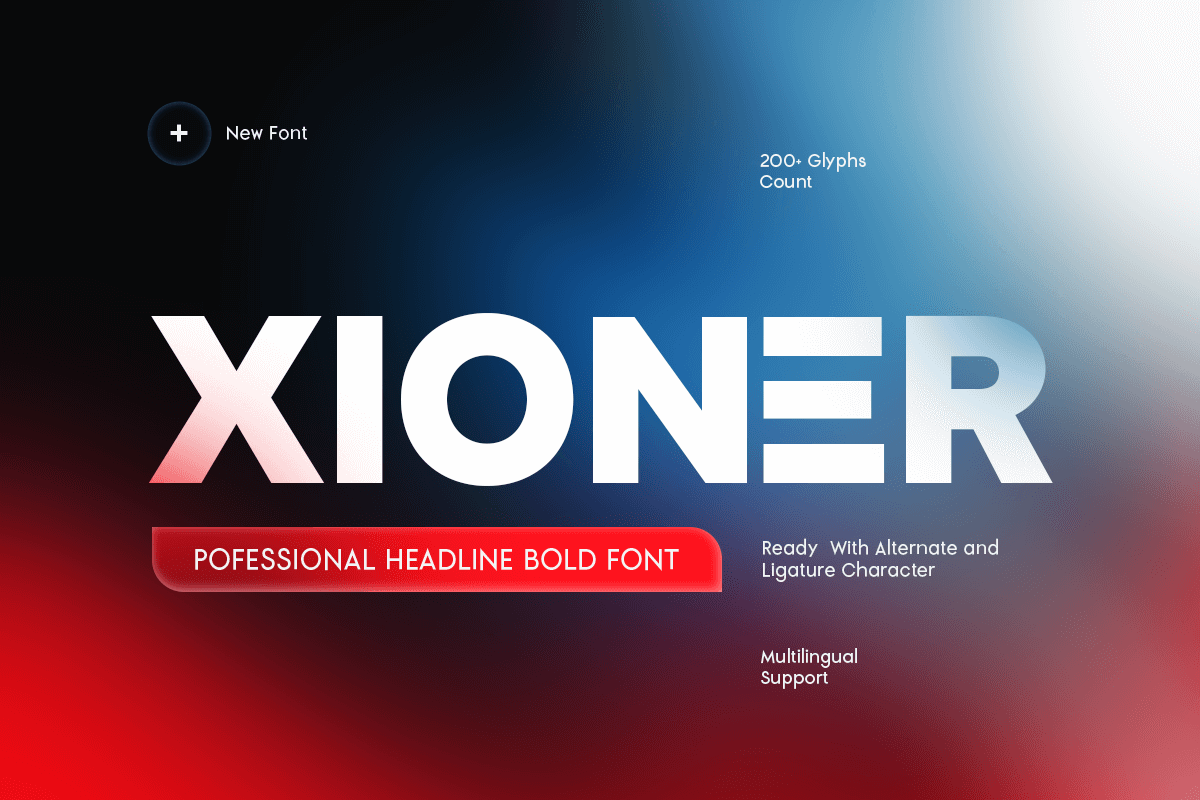
Xioner
-Geometric Branding Logo FontXioner - Geometric Branding Logo Font
XIONER is a unique geometric logo font designed to deliver a sharp, modern identity with distinctive character. Built from clean geometric construction and confident proportions, this typeface creates a sleek visual rhythm that feels contemporary, professional, and instantly brand-ready.
Made for logo-first typography, XIONER performs beautifully across wordmarks, brand identity systems, website headers, UI design, presentations, posters, signage, packaging, and social media graphics. Its geometric consistency keeps layouts crisp and balanced, helping brands look polished across both digital and print applications.
Whether you’re crafting a startup logo, building a tech-forward identity, or developing a minimal product brand, XIONER gives you a strong geometric foundation that makes typography feel smart, bold, and memorable.
Inspiration Behind XIONER
XIONER is inspired by modern geometric wordmarks and distinctive identity systems—where clarity meets personality. The design focuses on clean shapes, confident spacing, and unique letter details to create a logo font that stands out while staying minimal, structured, and highly versatile for branding.
XIONER Font Features:
Unique geometric letterforms optimized for logo and wordmark design
Clean modern structure with strong identity consistency
High readability for headlines and brand statements
Logo design, wordmarks, and brand identity systems
Startups, tech brands, and modern corporate branding
UI/UX, website headers, and digital product typography
Packaging, labels, signage, and clean promotional layouts
Social media graphics, presentations, and marketing assets
Create a bold modern identity with XIONER—crafted for unique geometric logos with clean professional clarity. ✨